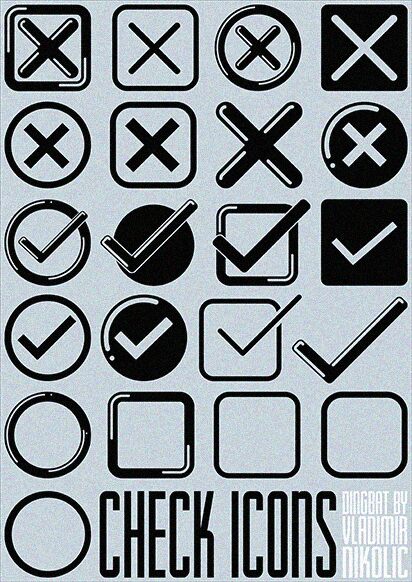
Check Icons Regular Czcionka
Looking for a versatile and visually appealing font for your next project? Look no further than Check Icons, the latest offering from accomplished designer Vladimir Nikolic. This dingbat font boasts a wide range of check signs, making it an ideal choice for any project that requires clear and concise visual communication. From websites to print materials, this semi-bold typeface can be used in a variety of contexts to convey important information with ease. Whether you're designing a logo or creating signage for an event, Check Icons is sure to impress with its sleek and modern style. So why wait? Download this stylish and practical font today and take your design projects to the next level!